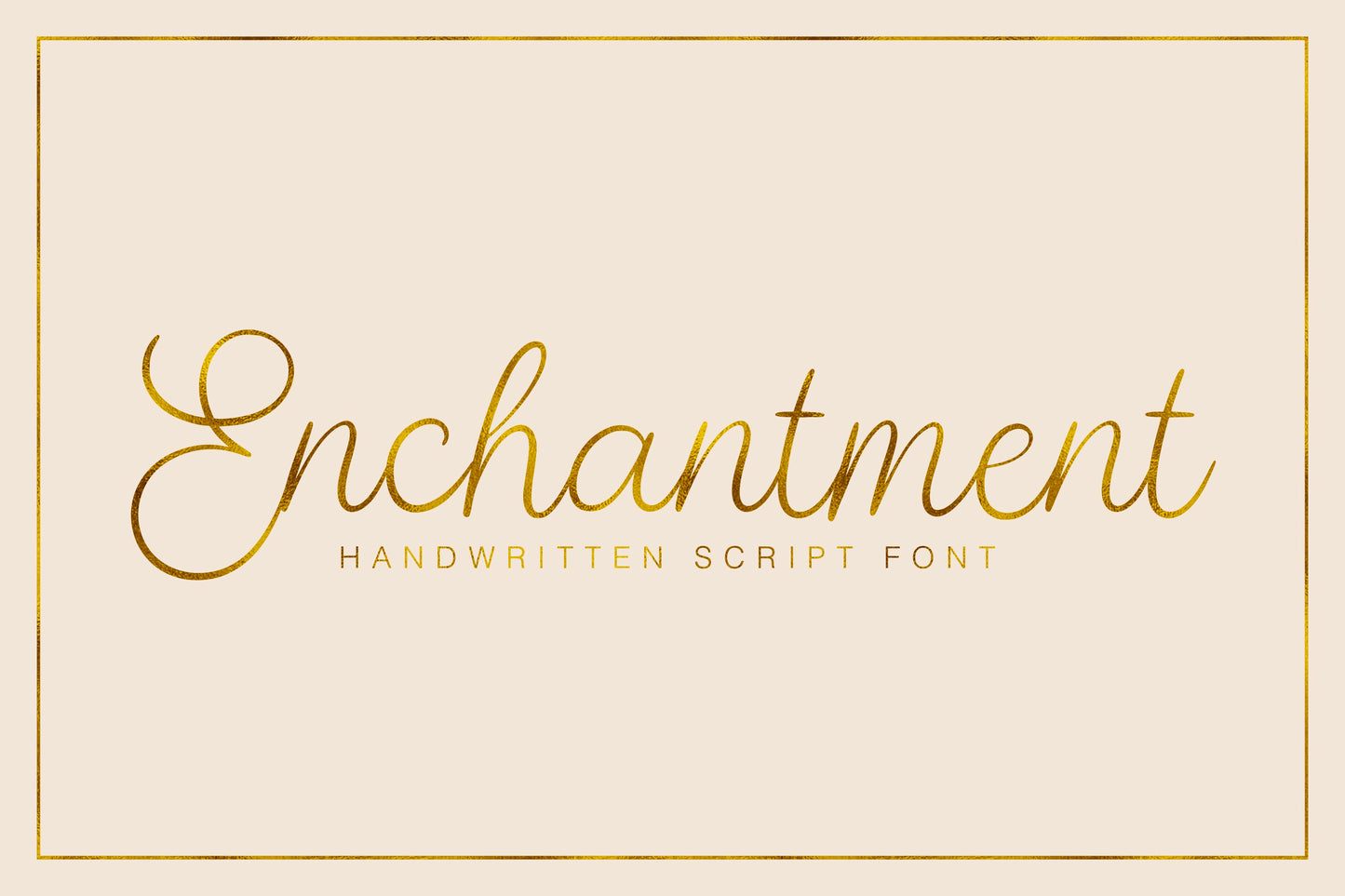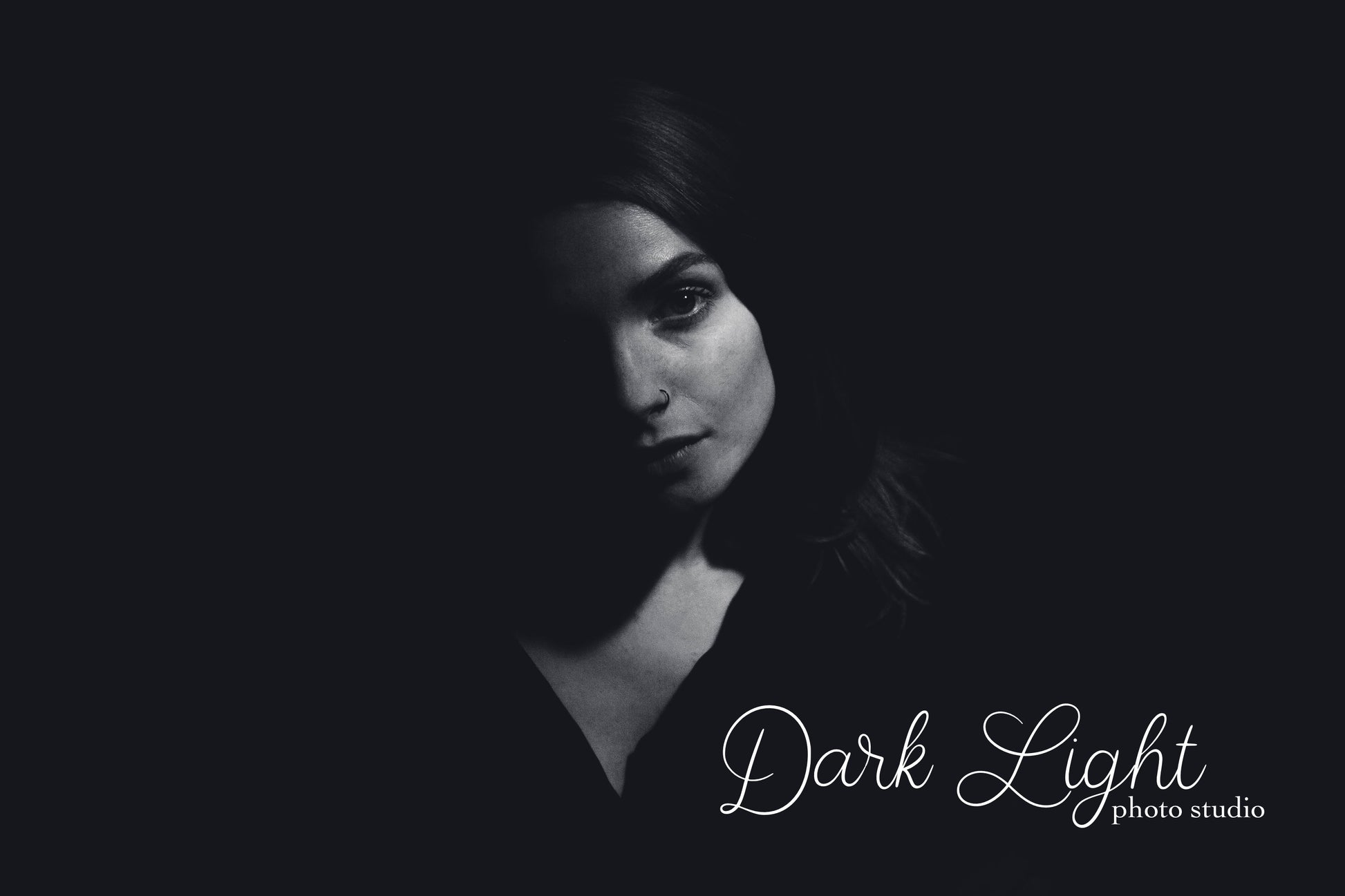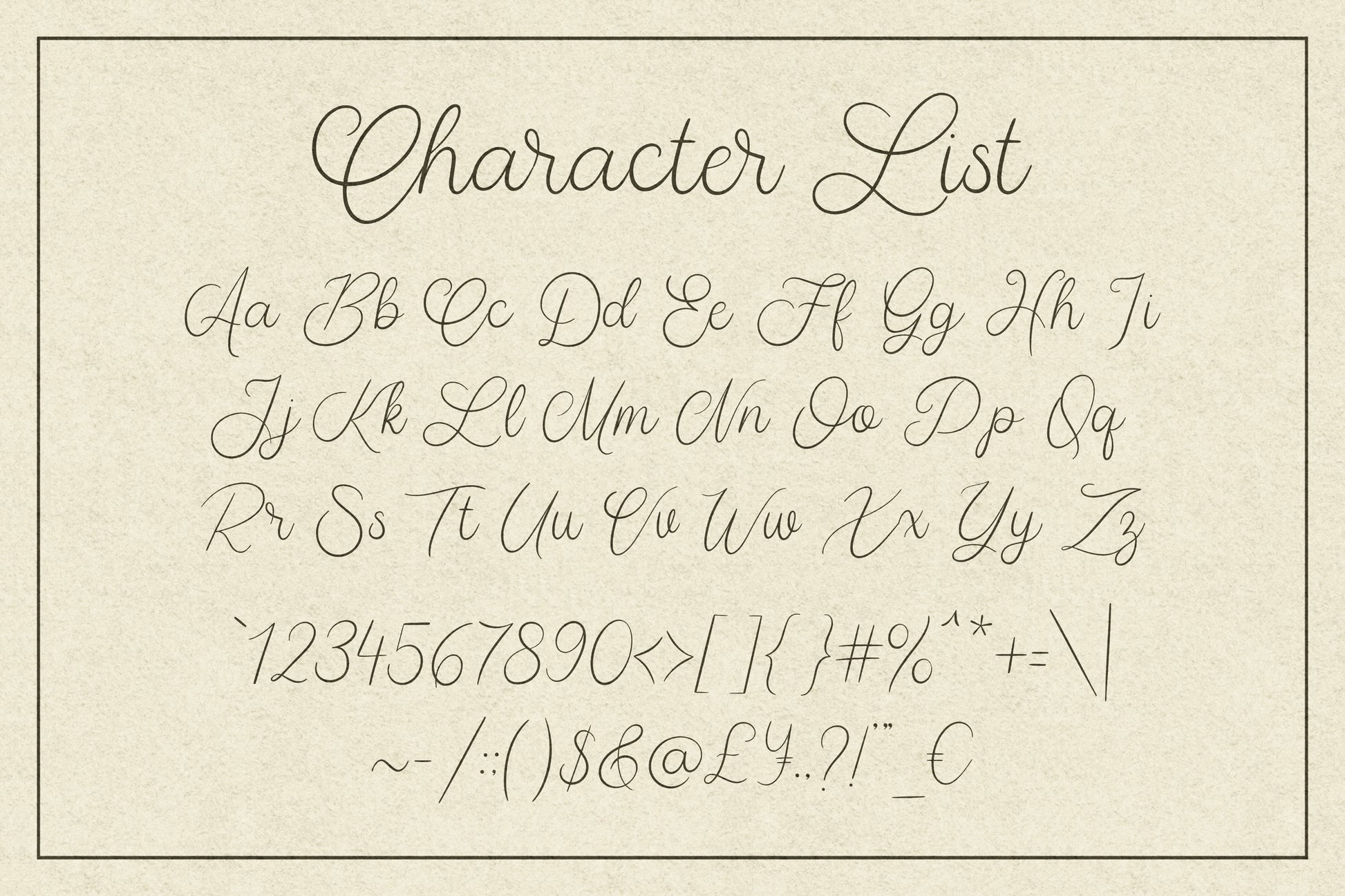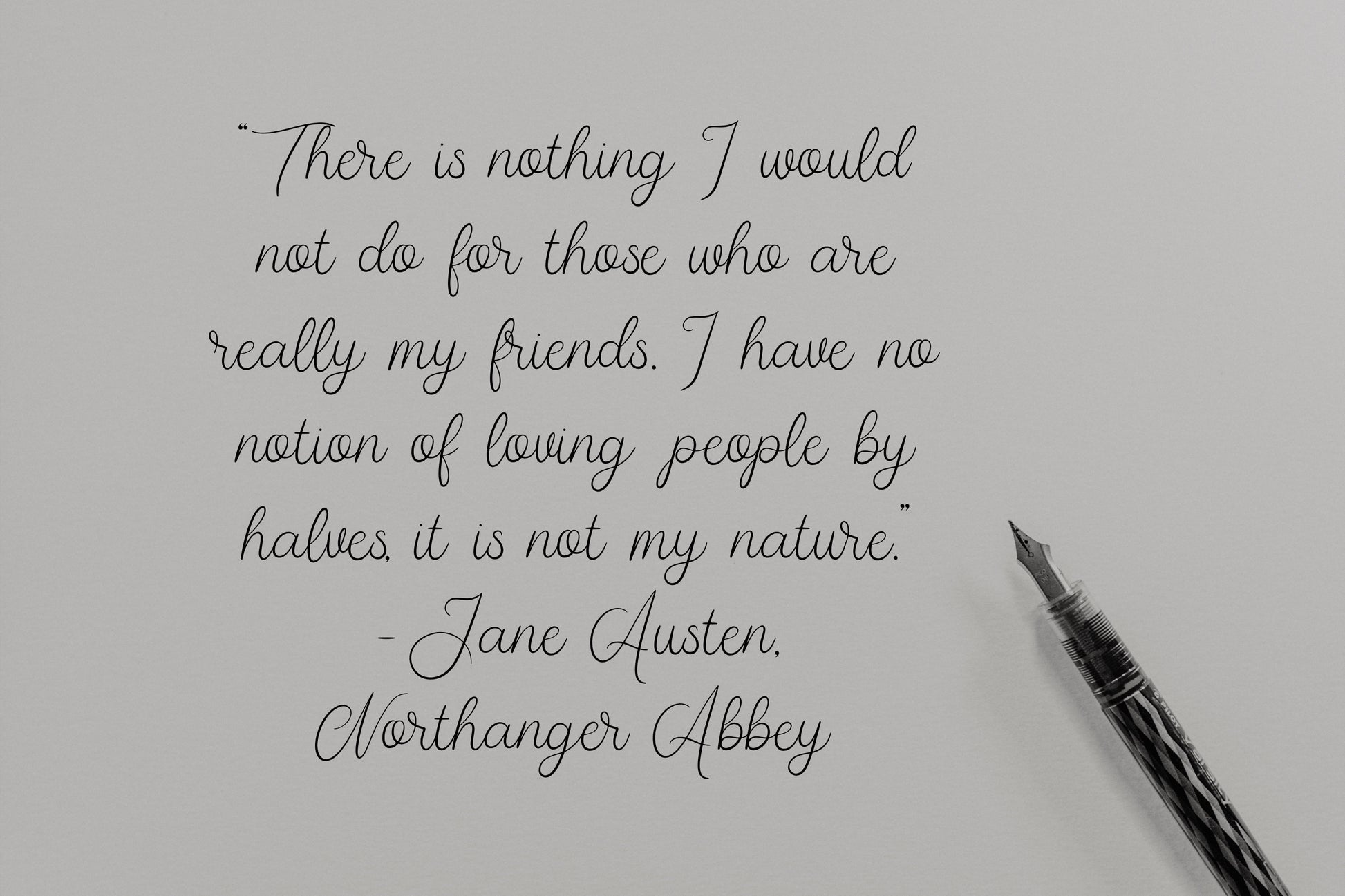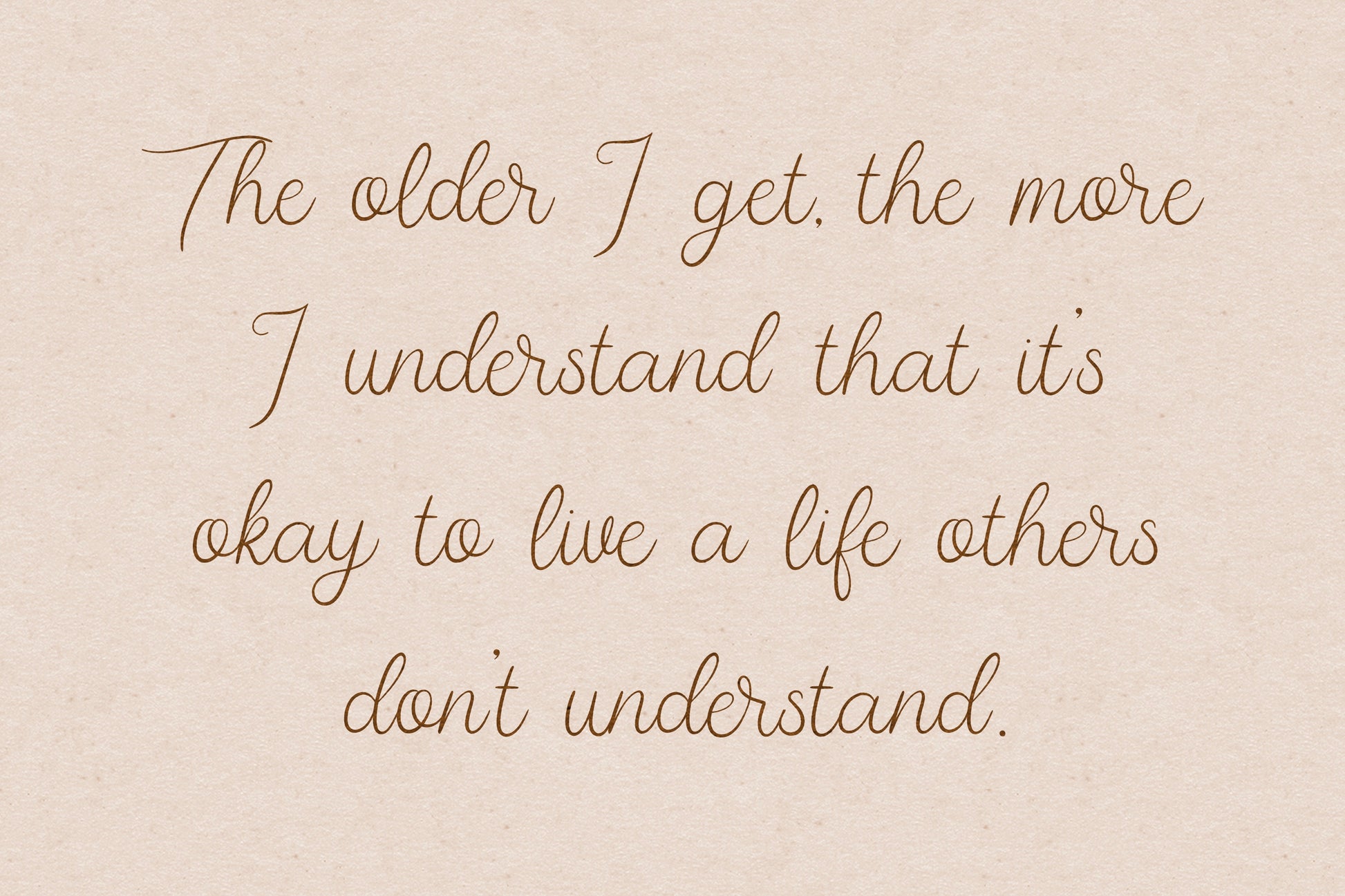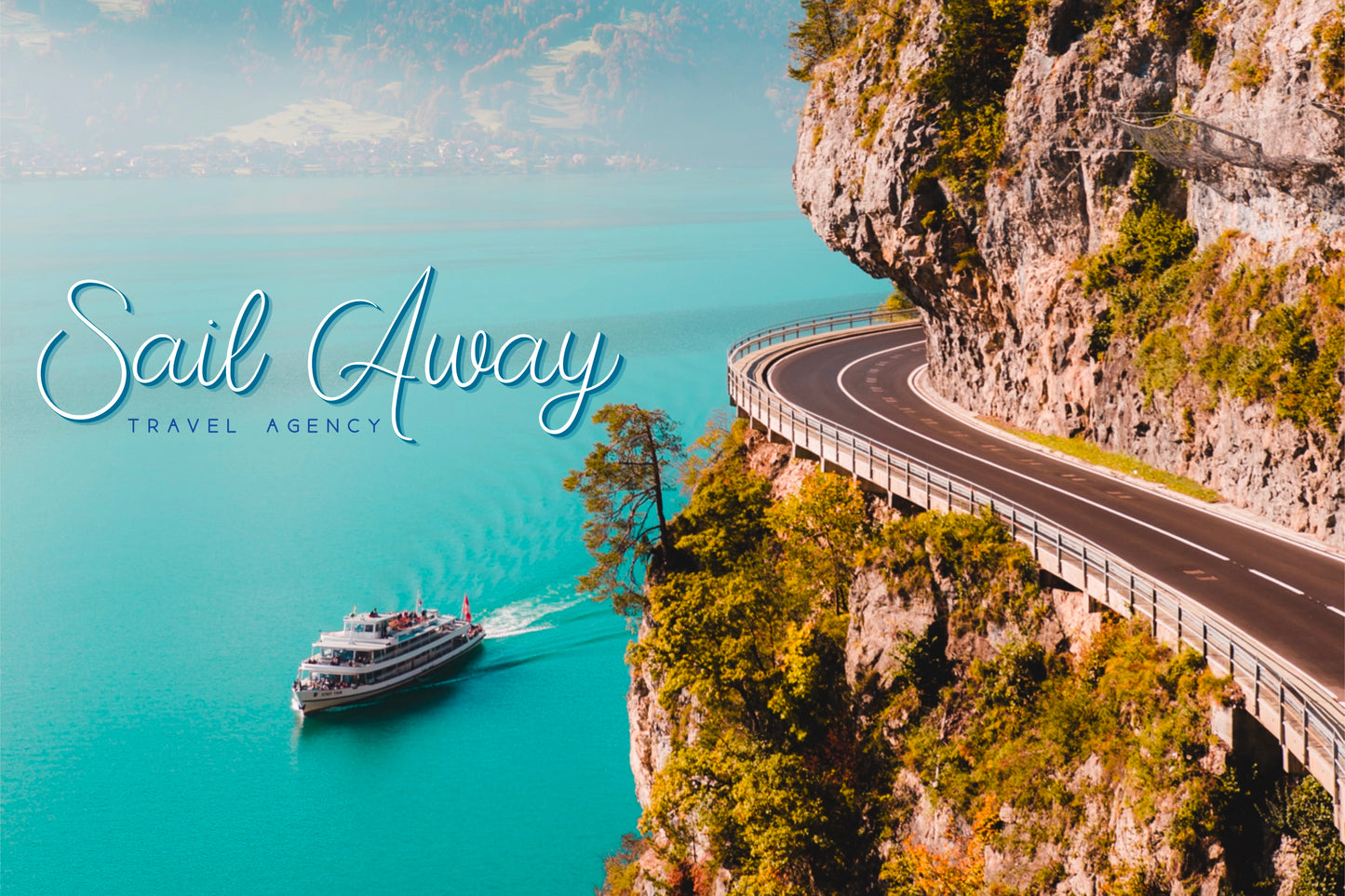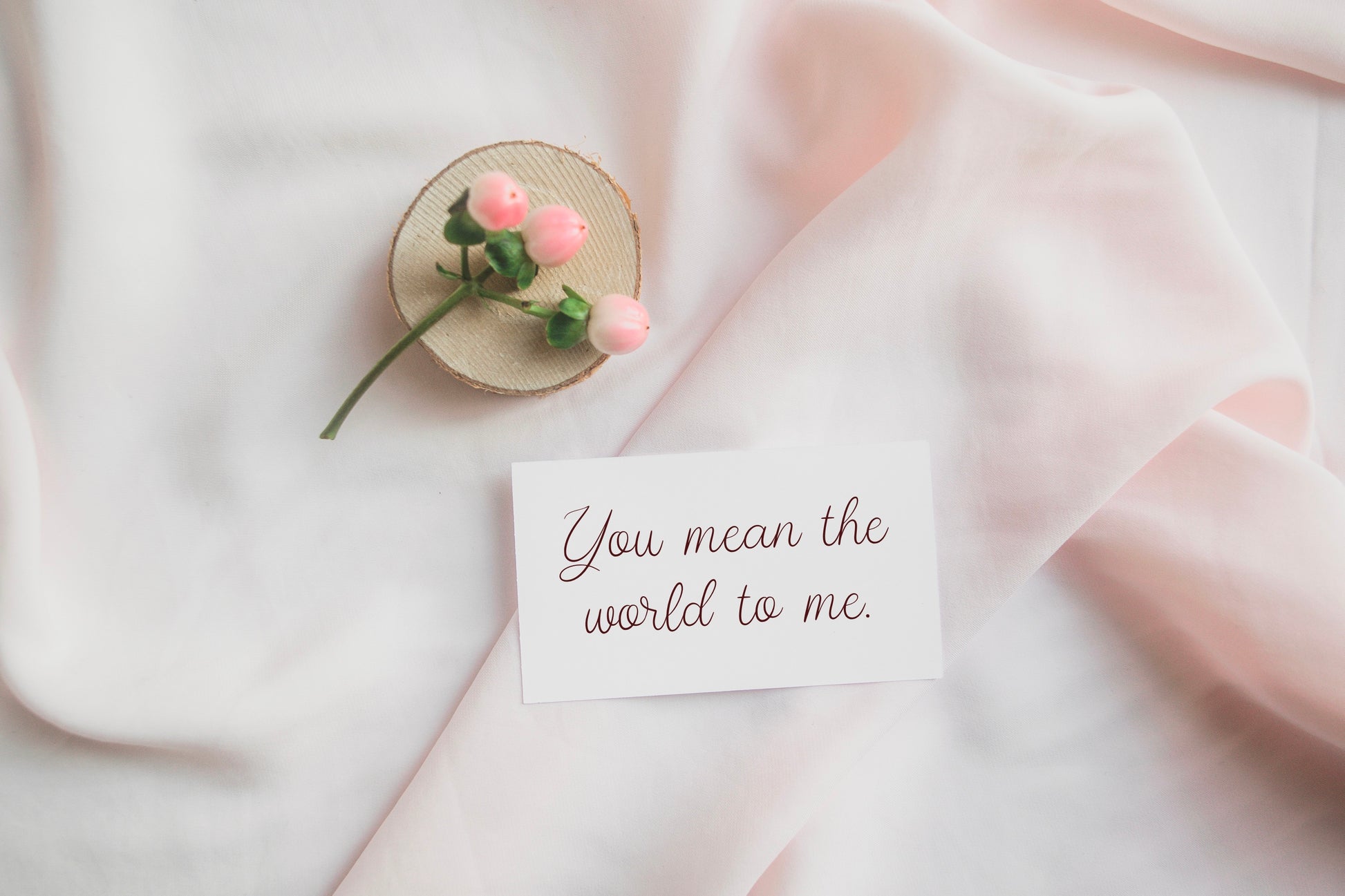
Enchantment Handwritten Font
Introducing the Enchantment handwritten/hand drawn font. This unique script font will add a fun, whimsical, handmade touch to your design! It is great for fun, elegant designs, as well as more casual, playful pieces. Perfect for invites, cards, posters, stickers, T-shirts, and more, this font can be used in endless, creative ways!